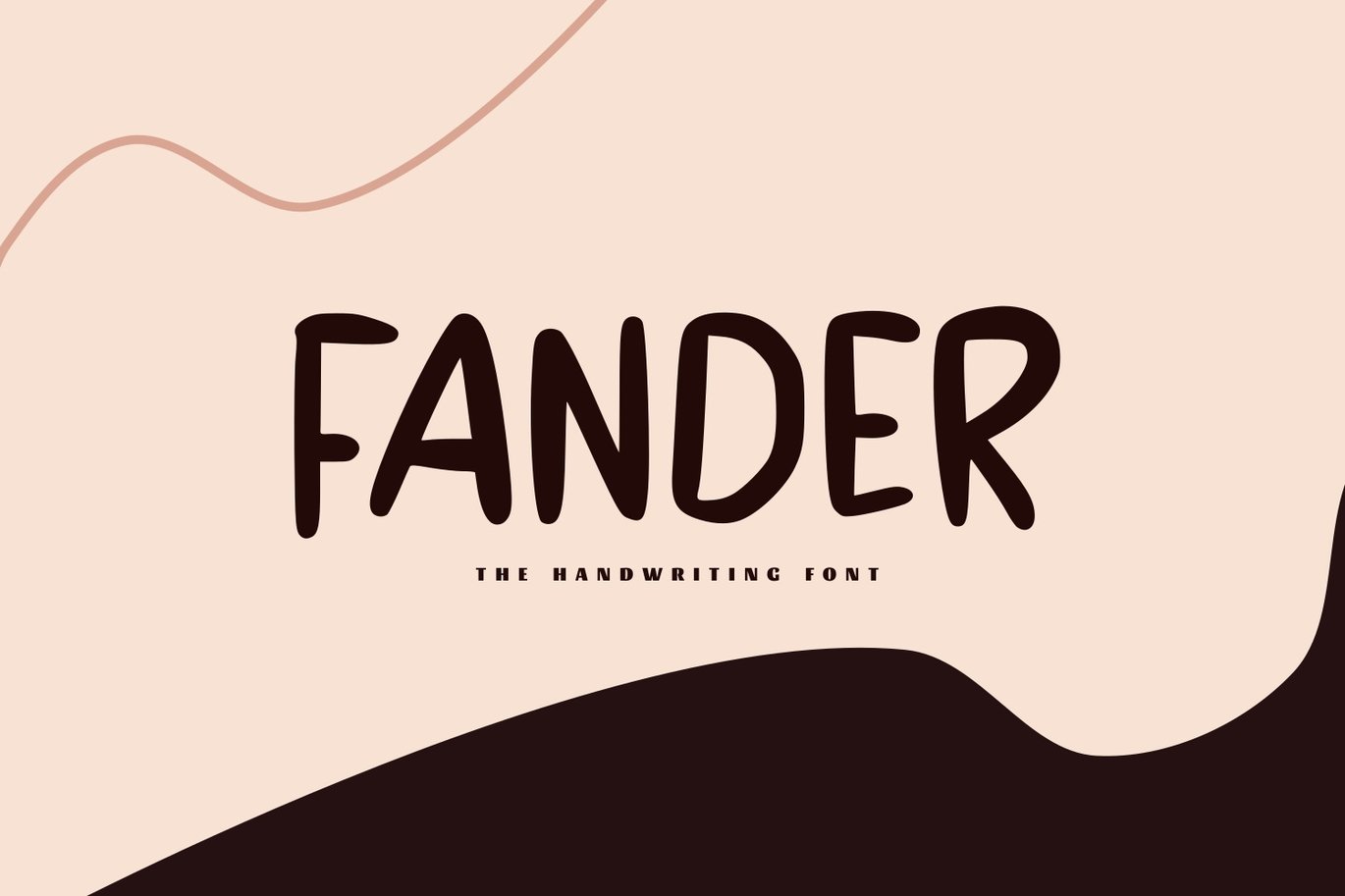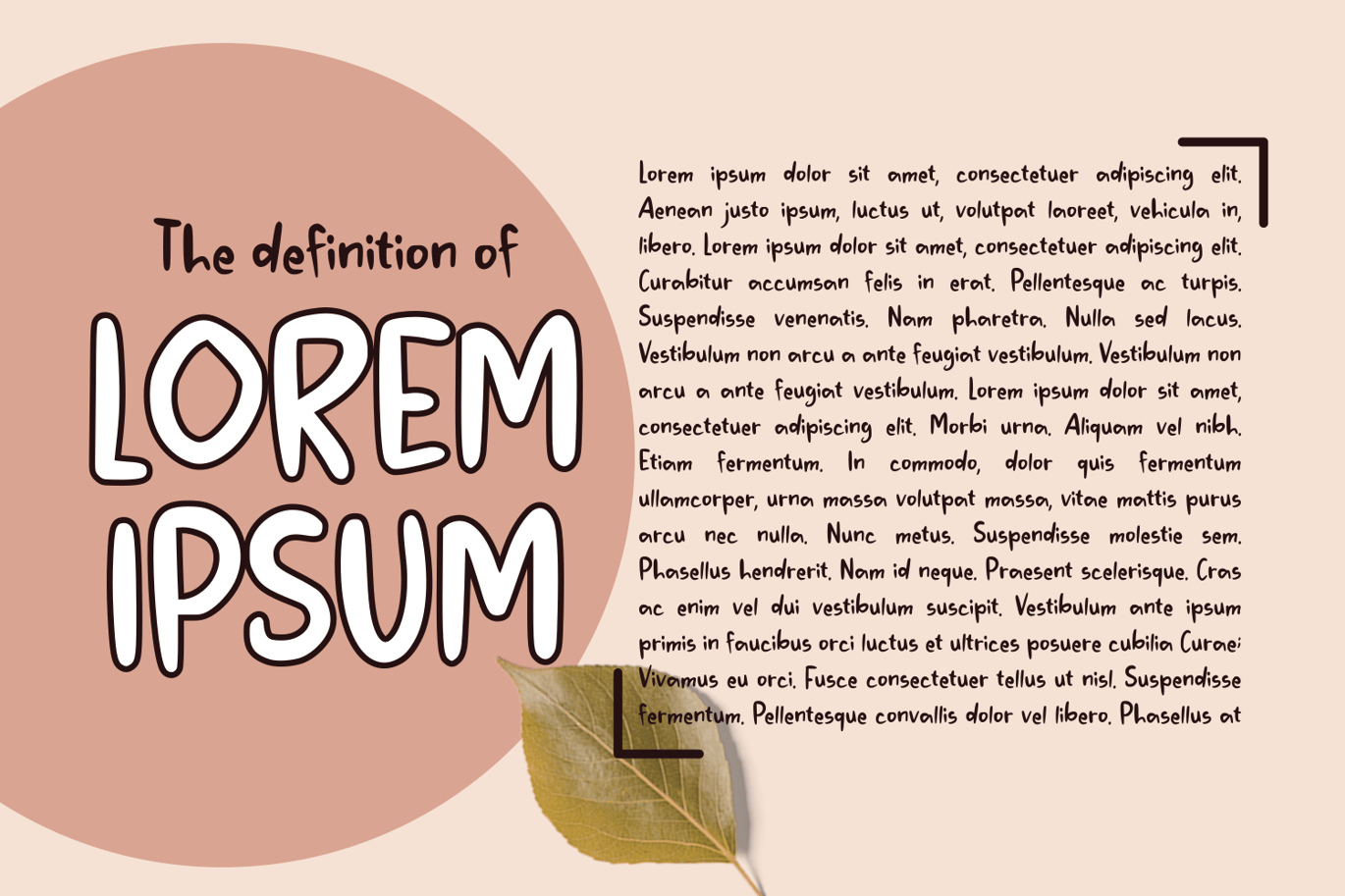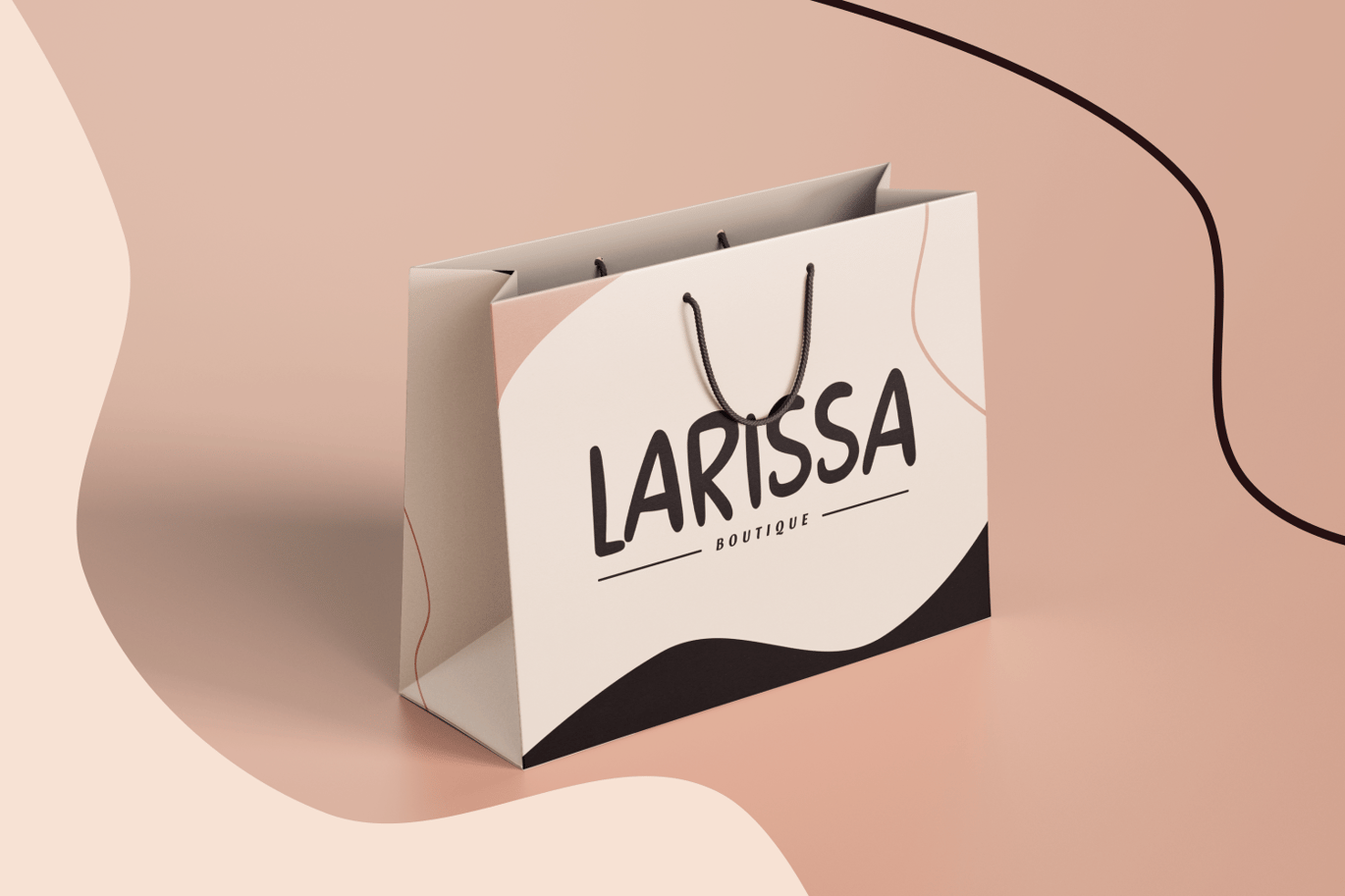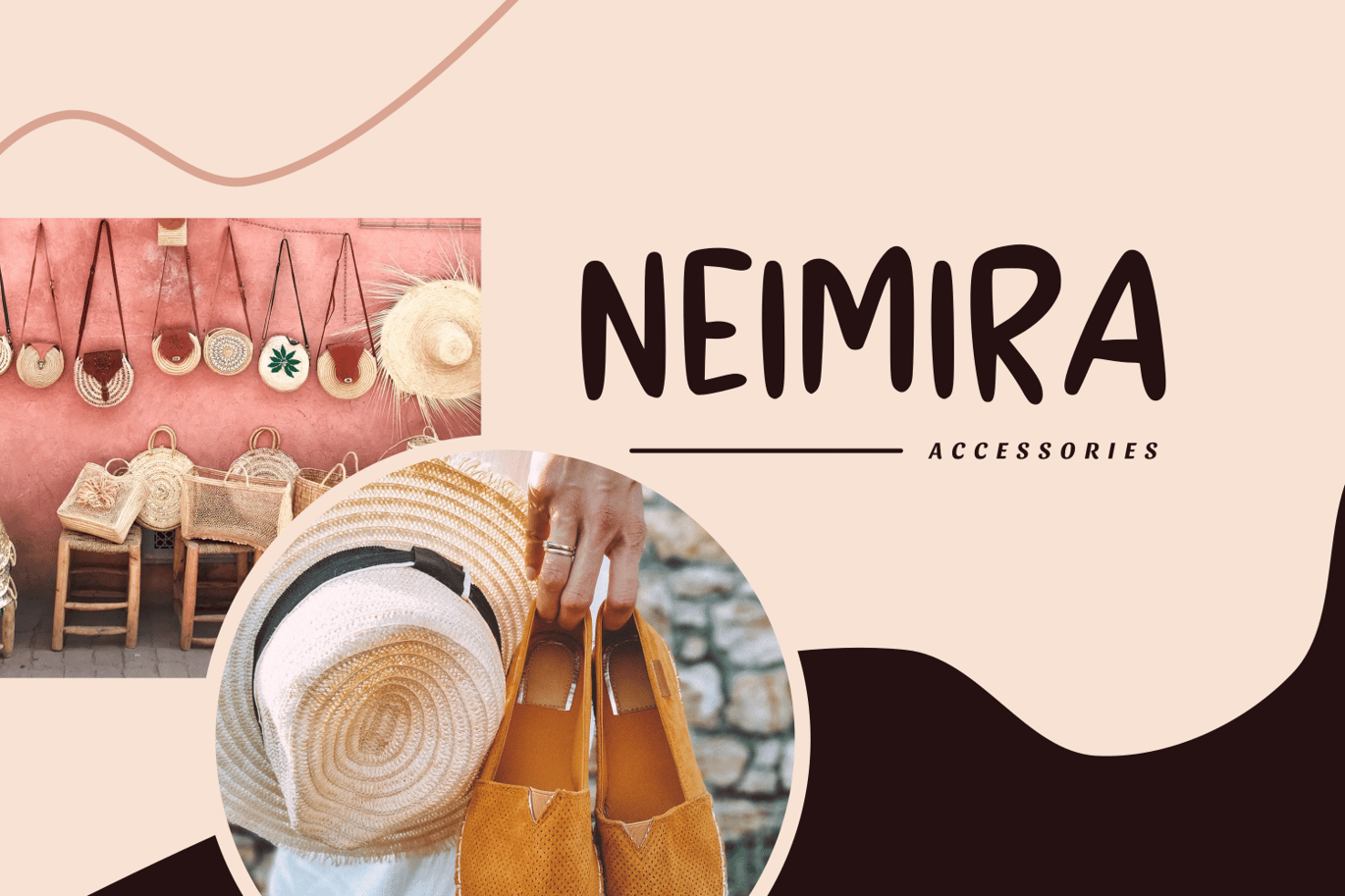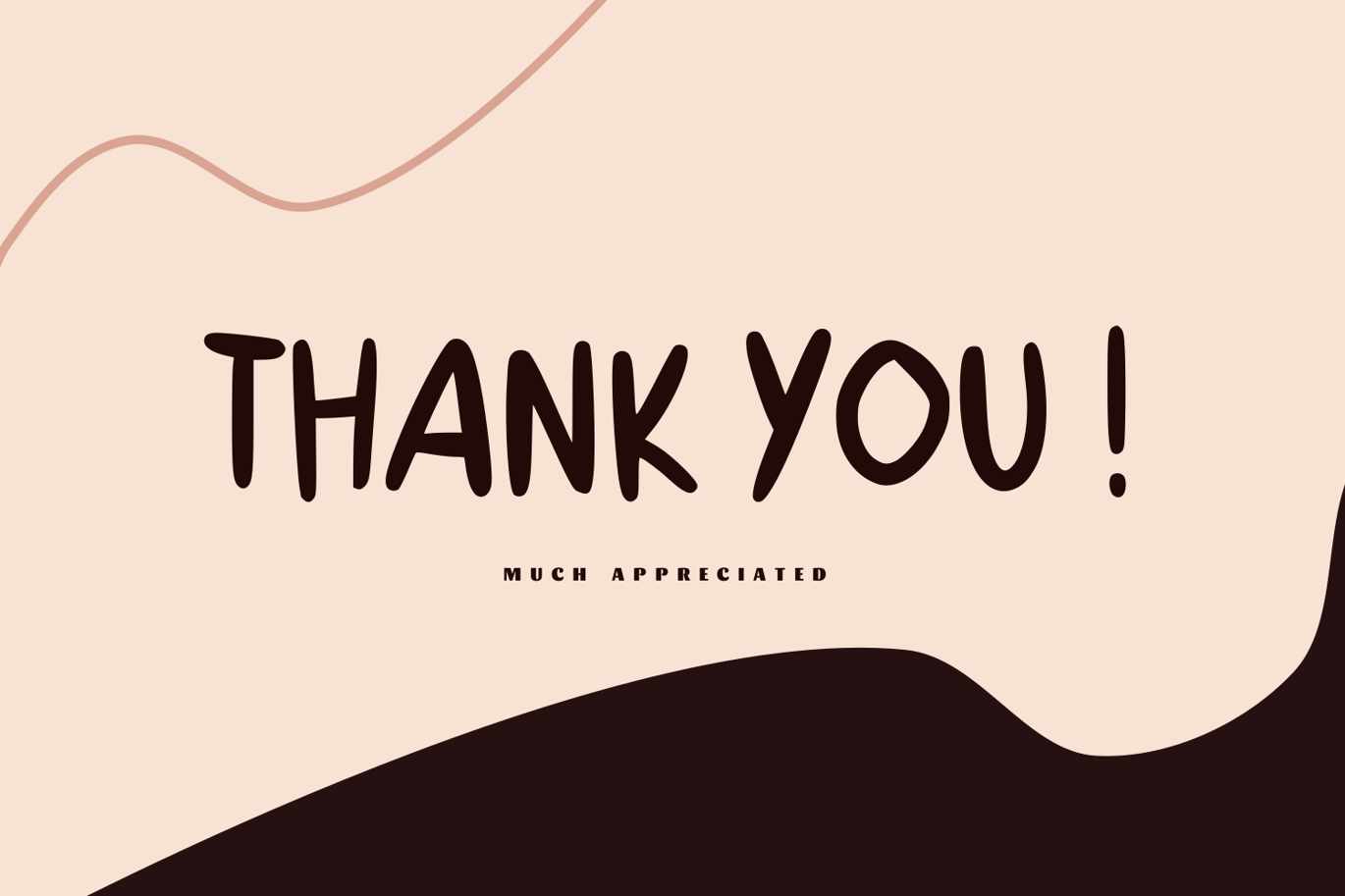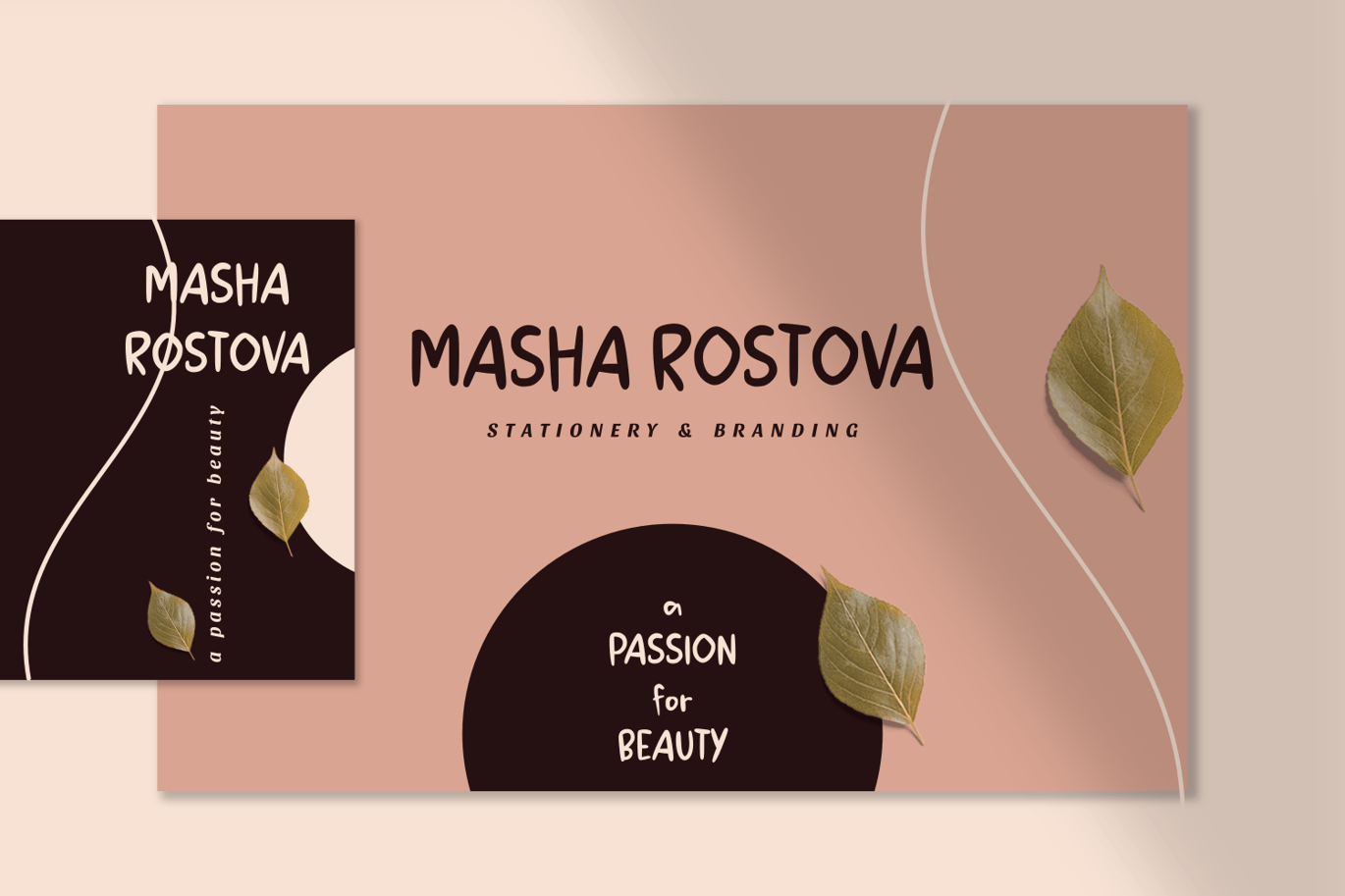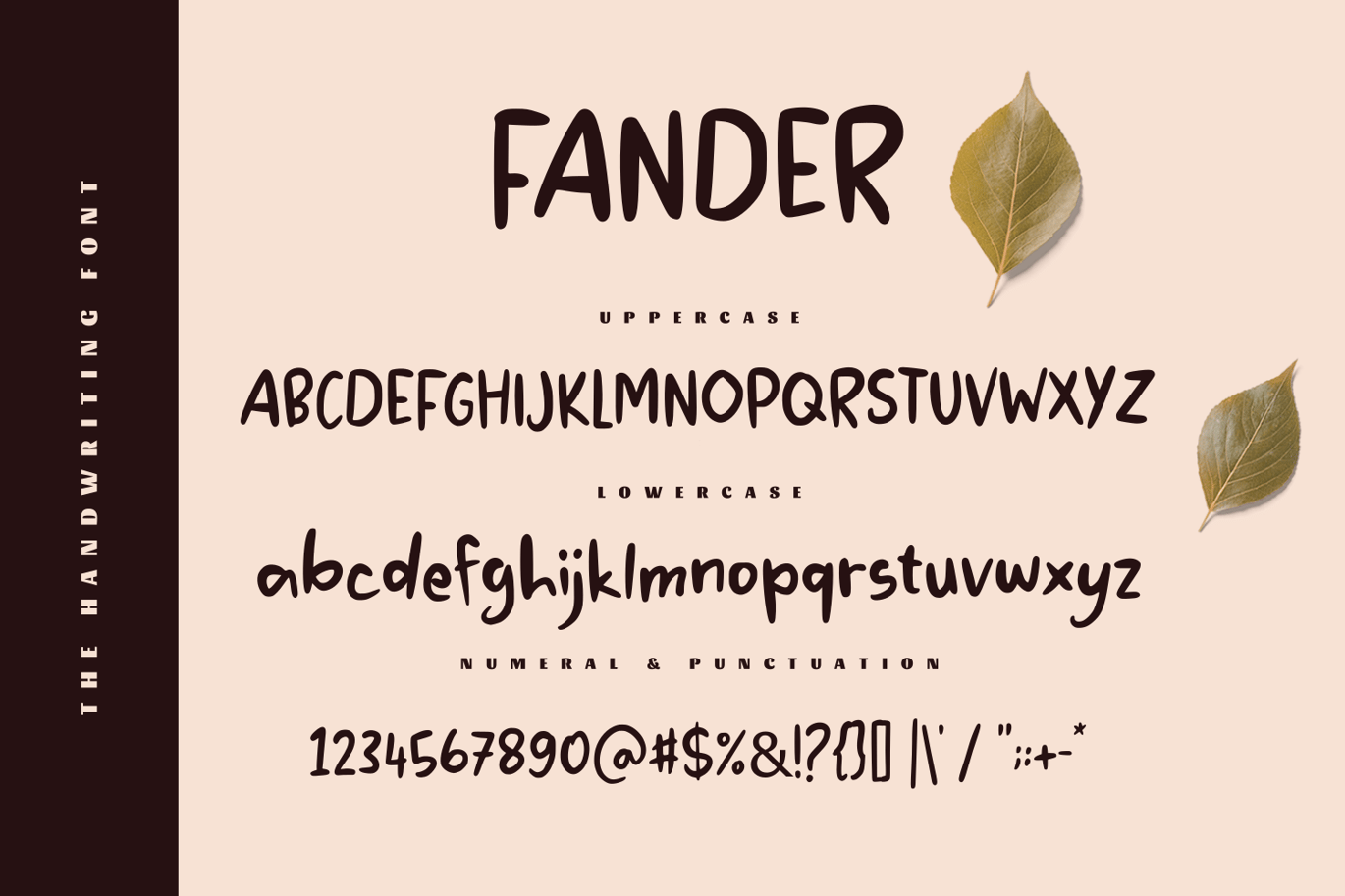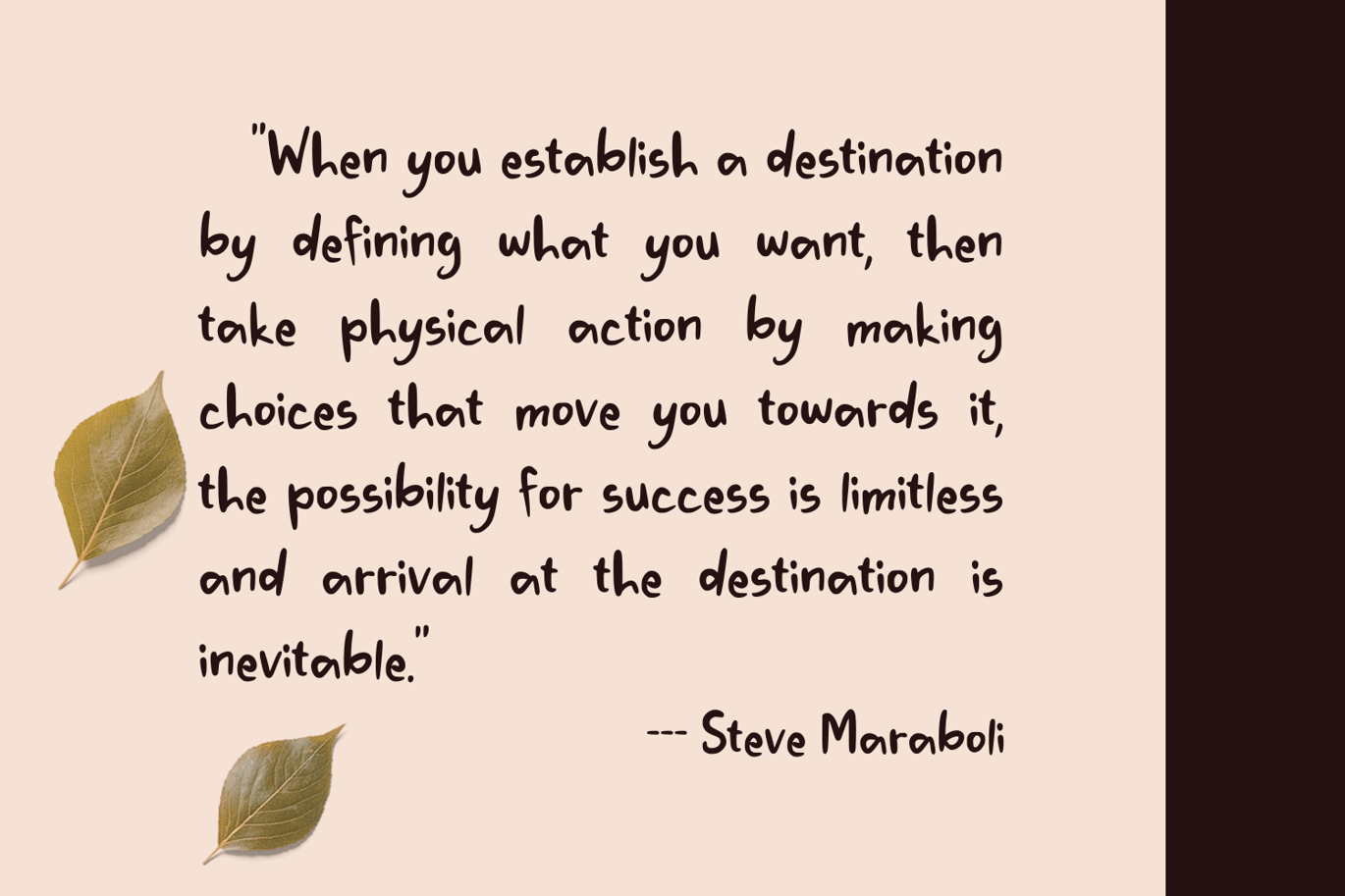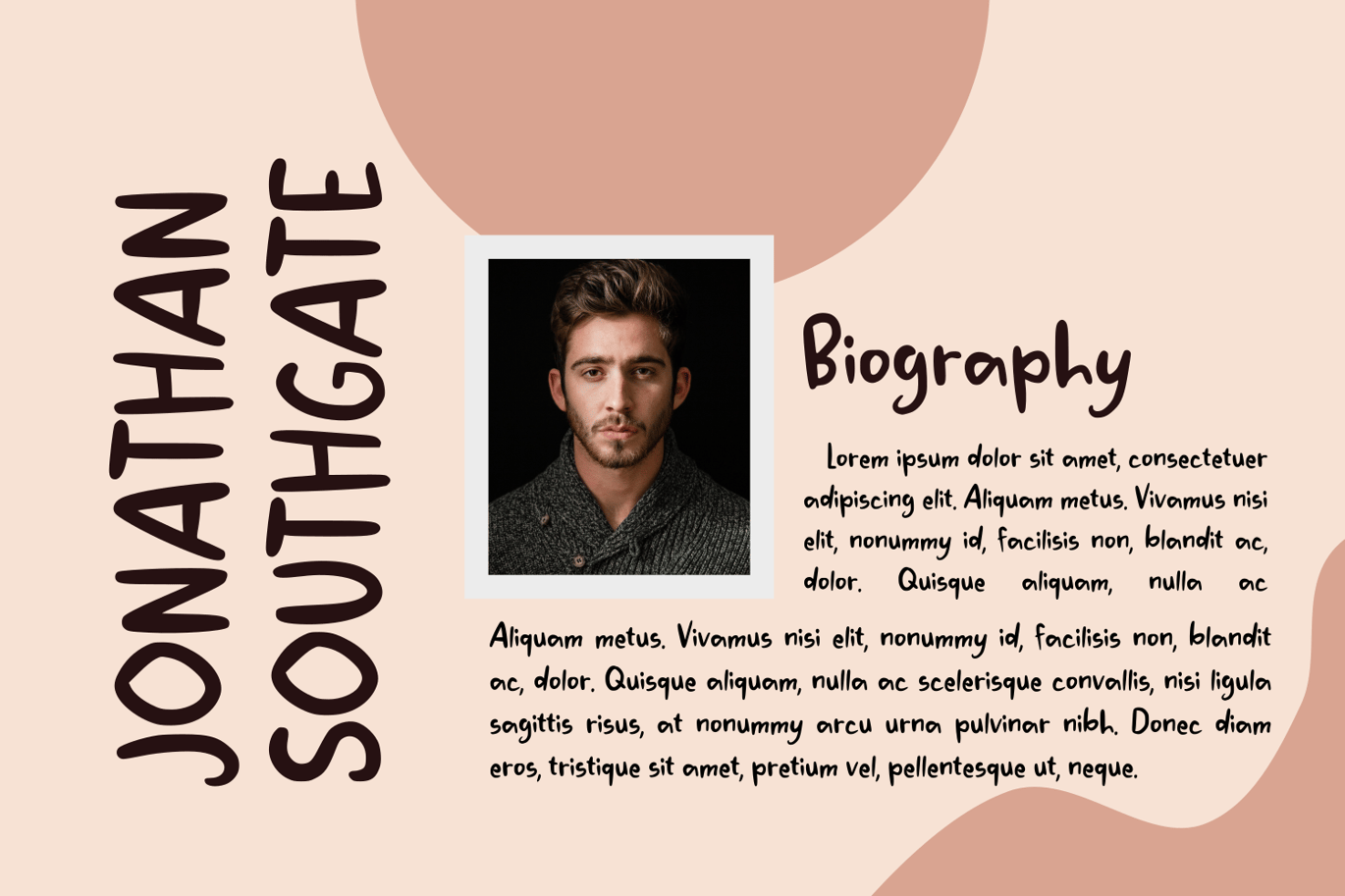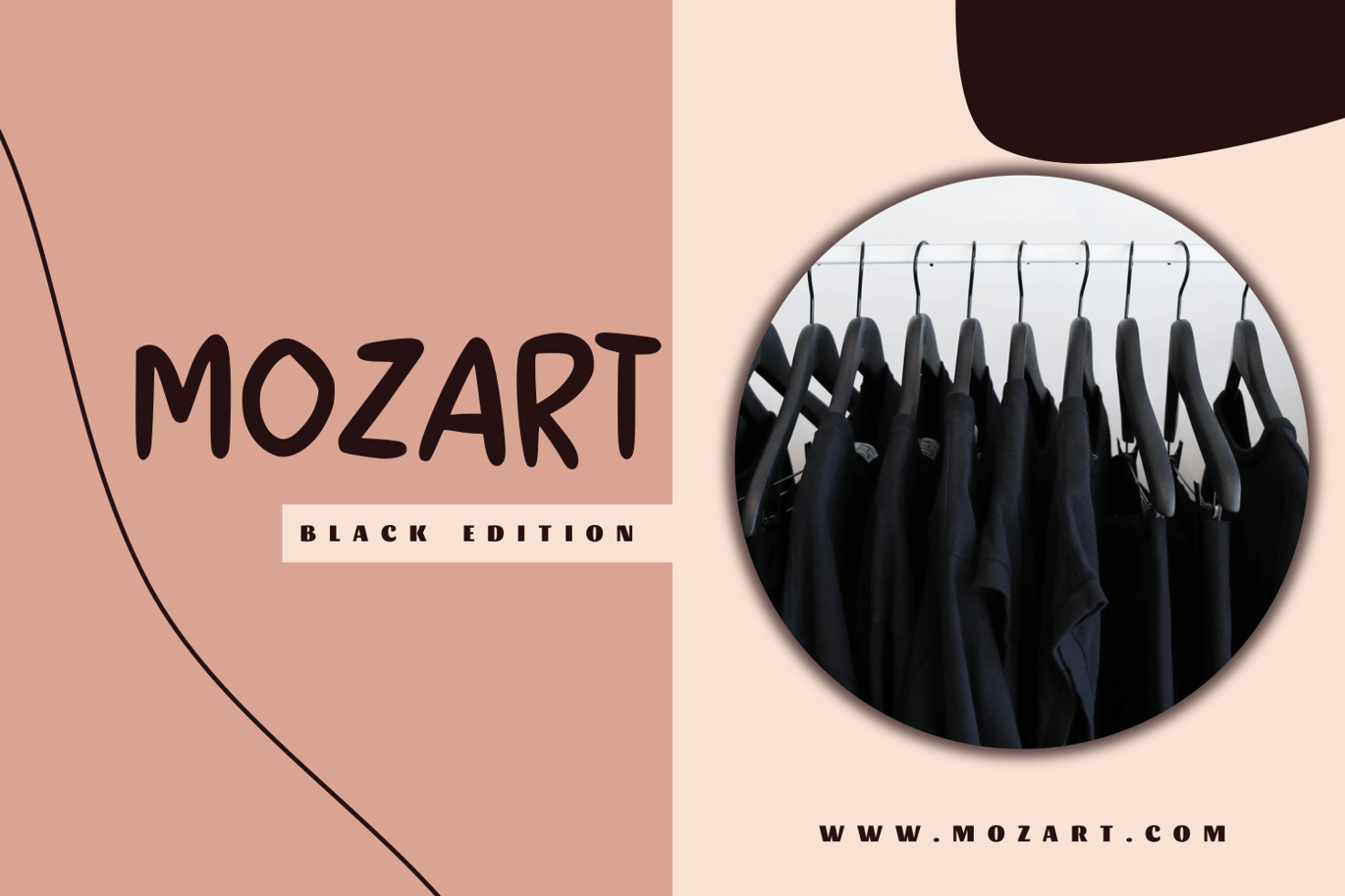
Fander – The Handwriting Font
Fander – The Handwriting Font, every single letter has been carefully crafted to make your text looks beautiful. it’s perfect for logos, name cards, magazine layouts, invitations, headers, or even large-scale artwork.